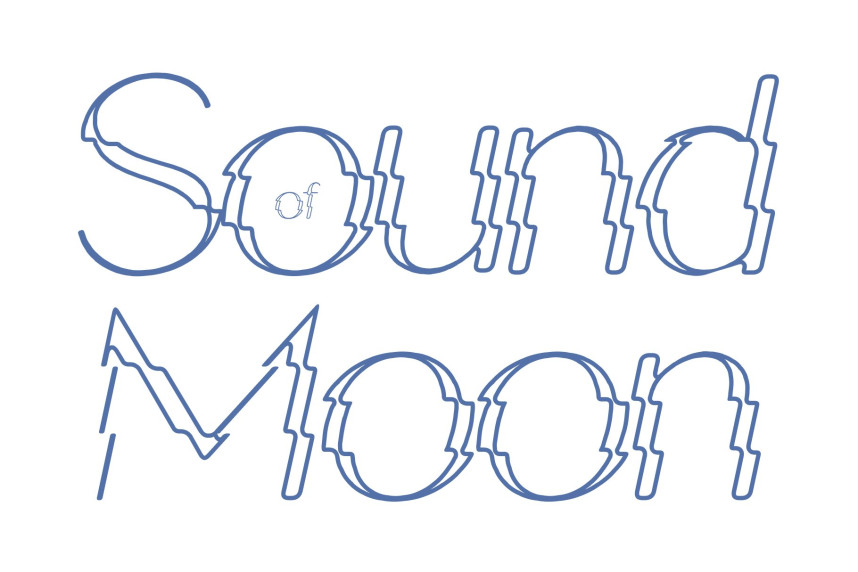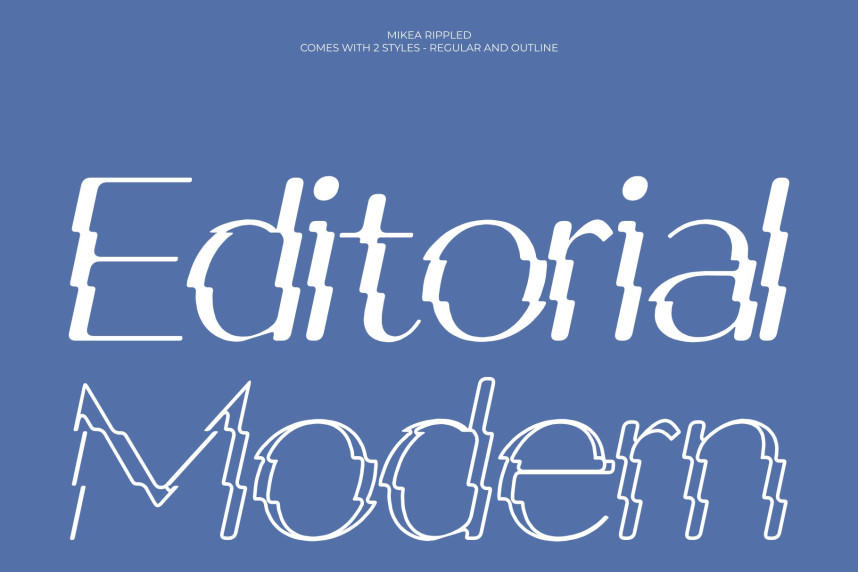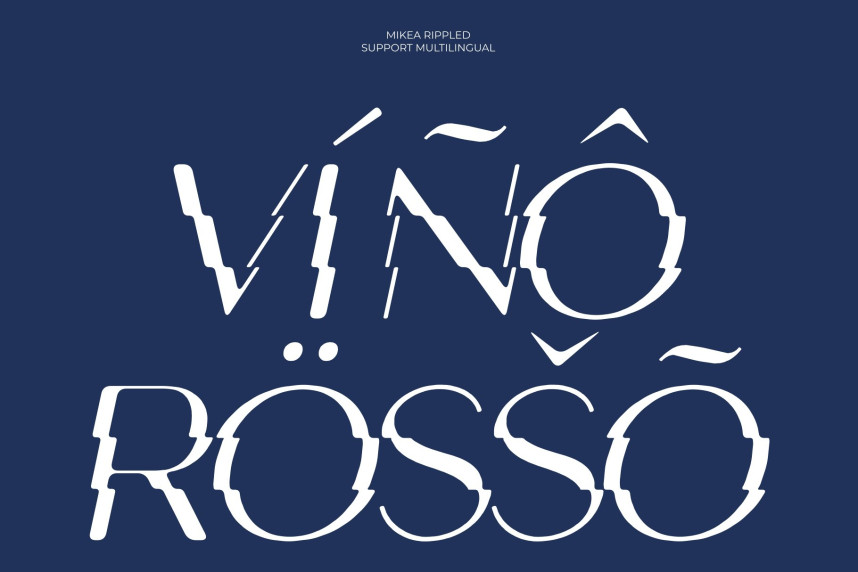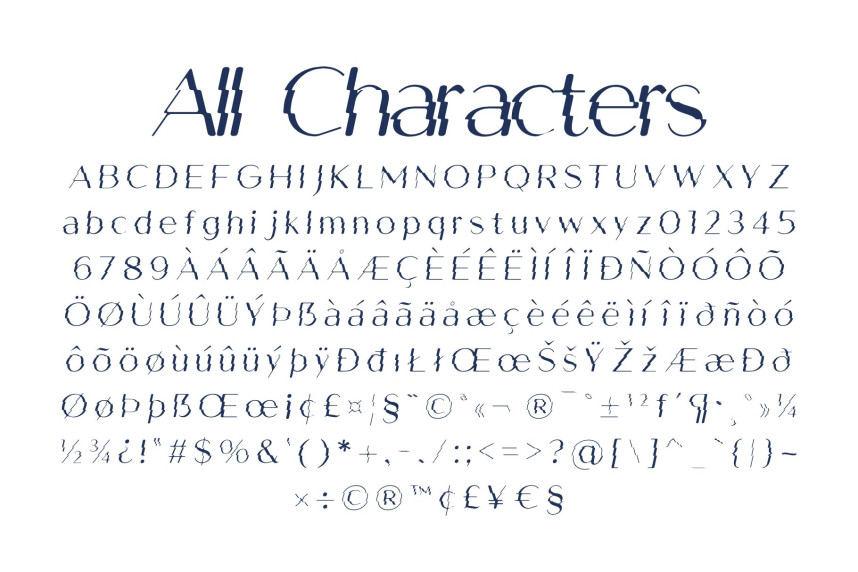
Mikea Rippled Font
Mikea Rippled Font – Luxury Sans Serif Font: Where Elegant Sophistication Meets Fluid Wave Motion
Refined Letterforms with Premium Appeal
This is a modern sans serif font that exudes luxury through its refined letterforms, balanced proportions, and clean contemporary design. Every character is crafted to convey sophistication and exclusivity, creating typography that feels polished, elegant, and effortlessly modern.